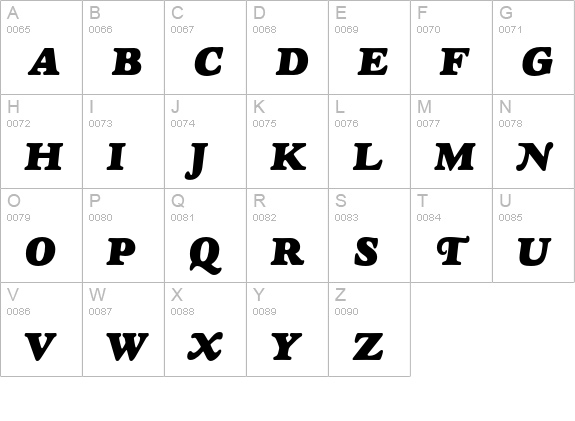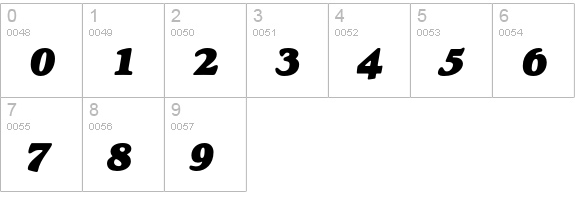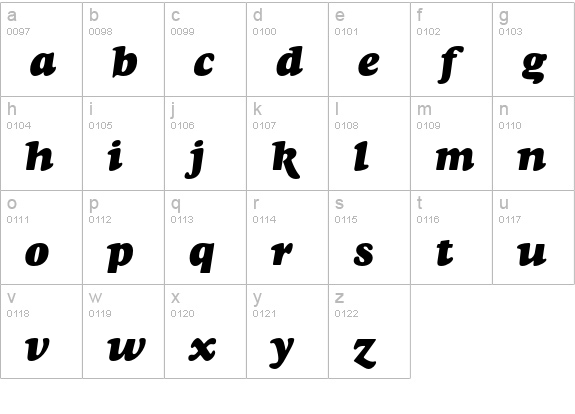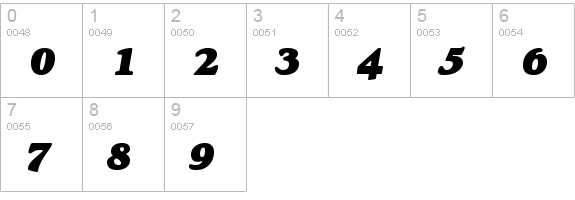
Goudy Heavyface Std Italic Font Details
Goudy Heavyface Std Italic is a distinctive, italic variant in the Goudy typeface family \xE2\x80\x94 well suited to design and typography projects.
The Goudy Heavyface Std Italic font is a striking and bold typeface that exudes a sense of strength and elegance. Its slanted italic style adds a touch of sophistication to any design project, making it perfect for headings, titles, and other prominent text elements. The thick strokes and unique letterforms of this font give it a distinctive and commanding presence on the page. What's even better is that the Goudy Heavyface Std Italic font is available for free download at FontsMarket.com. This means that you can easily access this high-quality typeface for your personal or commercial projects without any cost. Don't miss out on the opportunity to enhance your designs with the timeless appeal of the Goudy Heavyface Std Italic font - download it now and elevate your typography game!